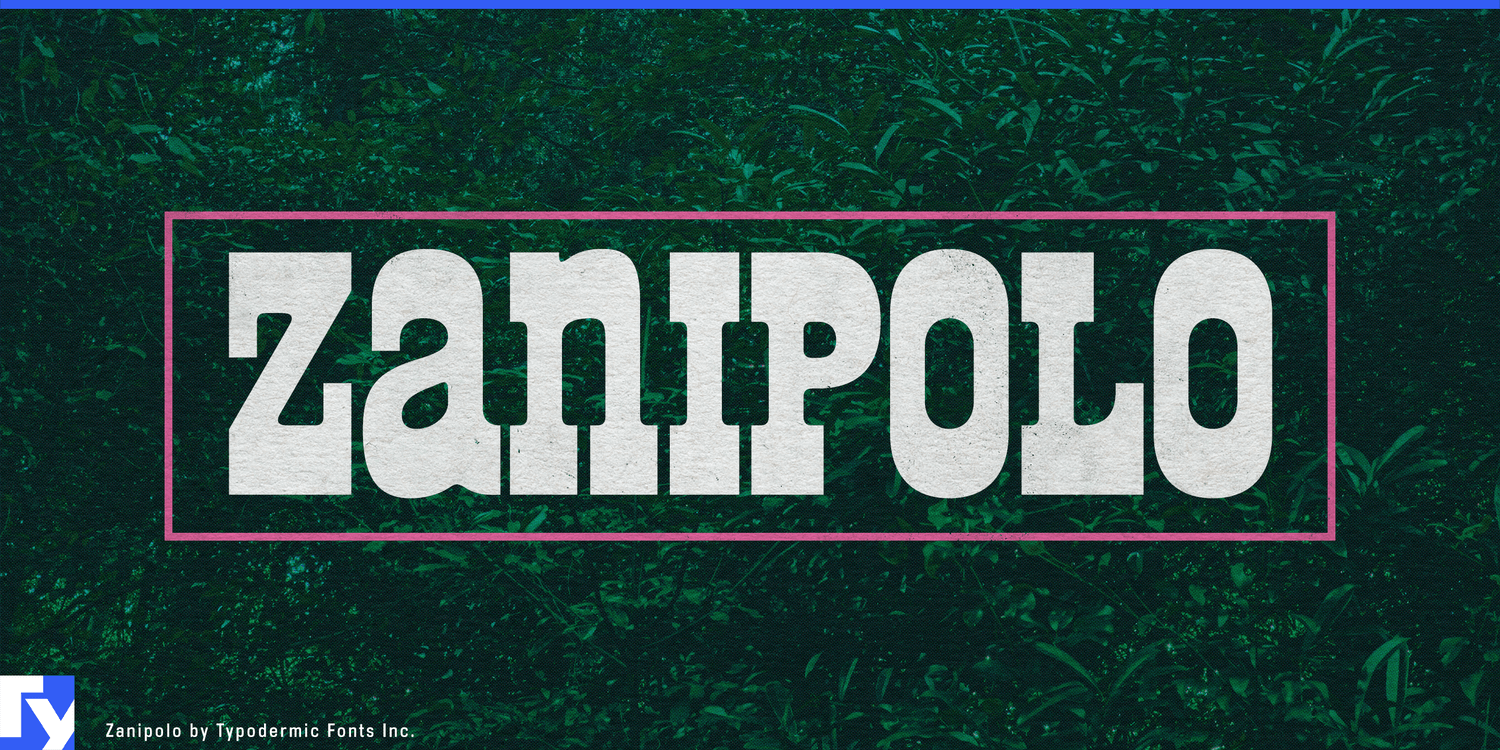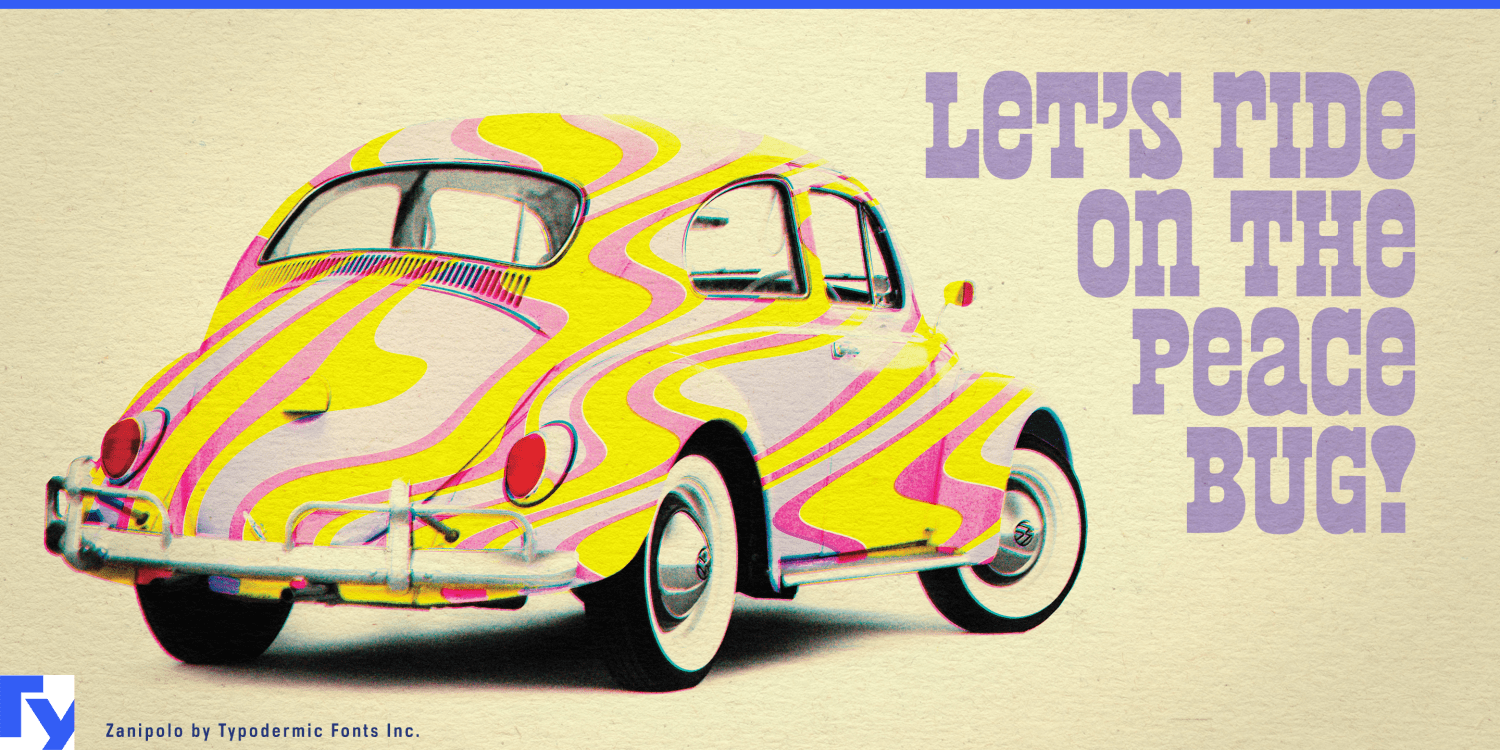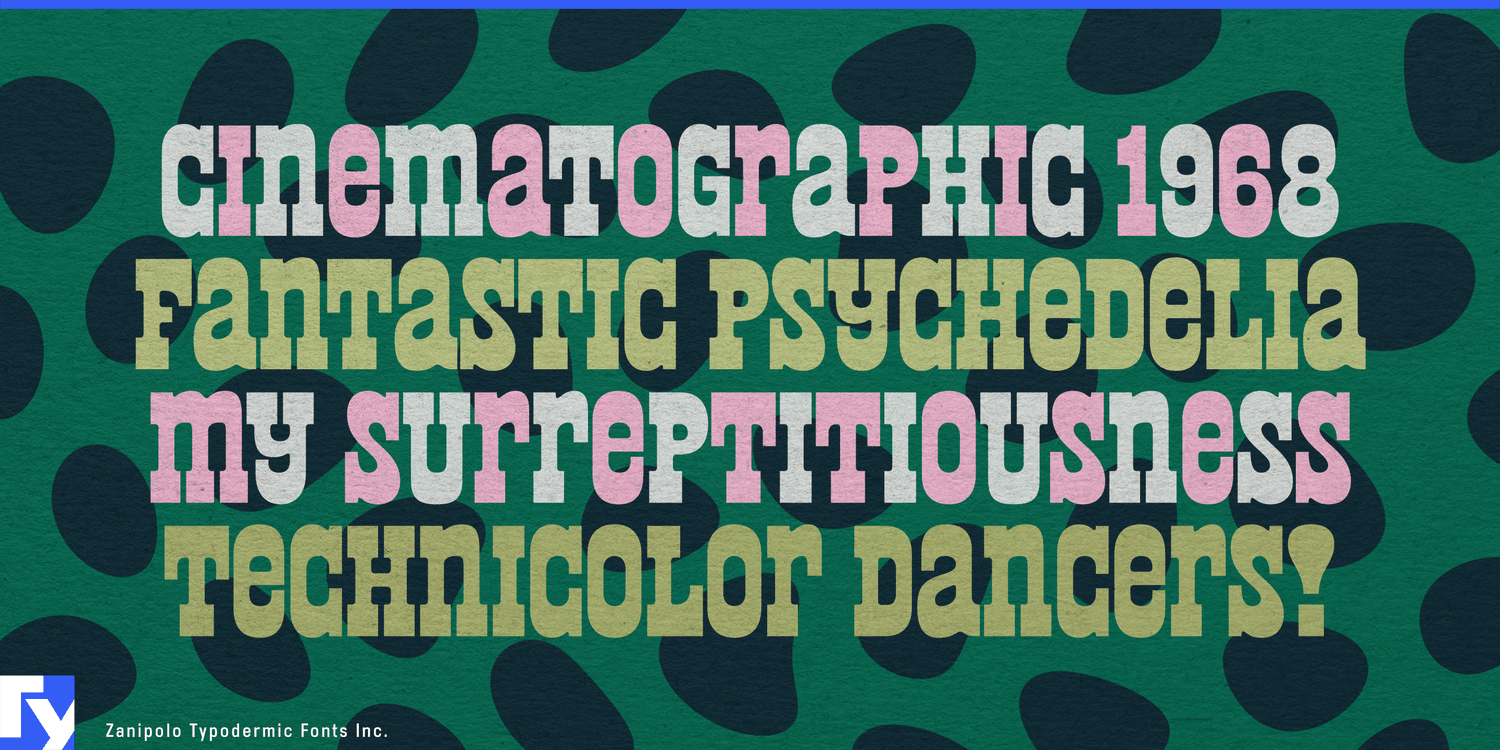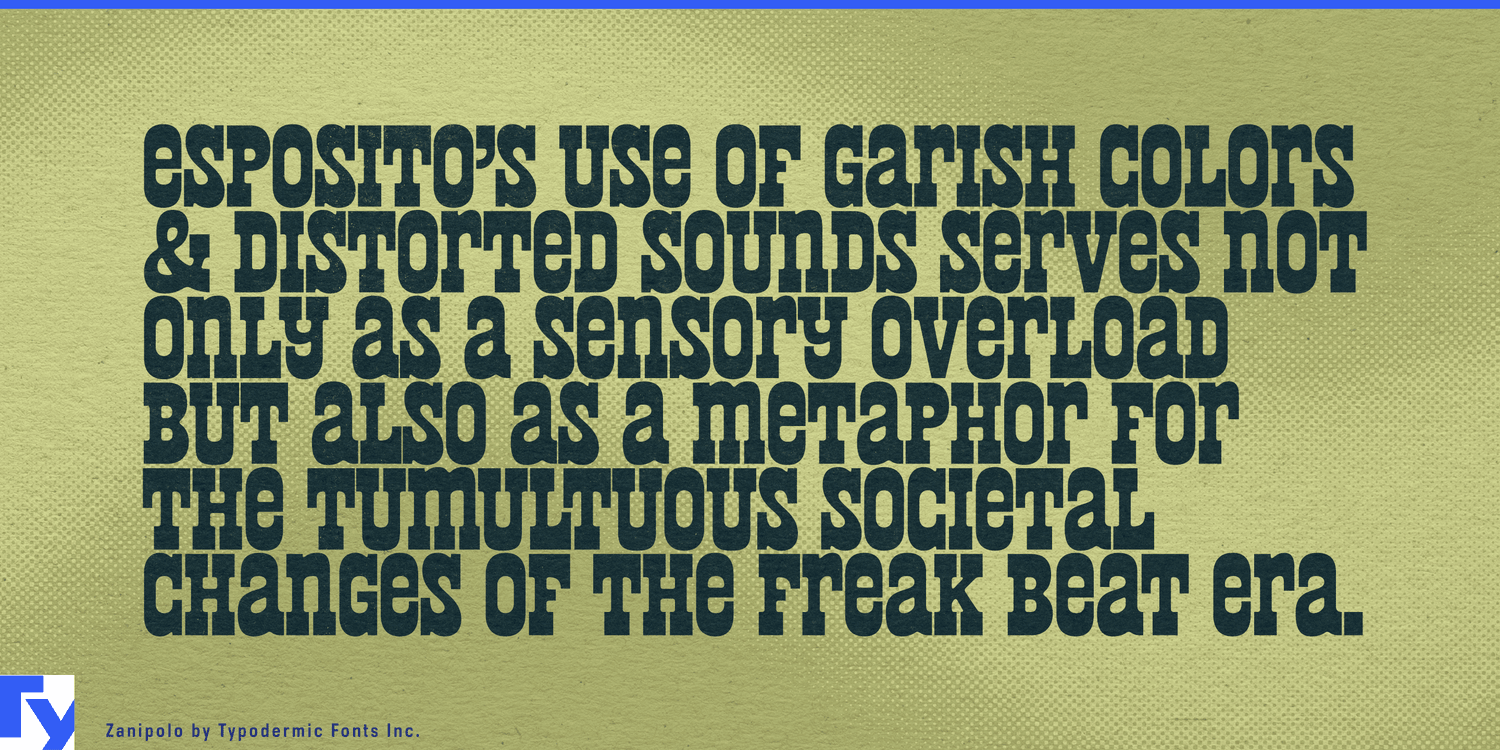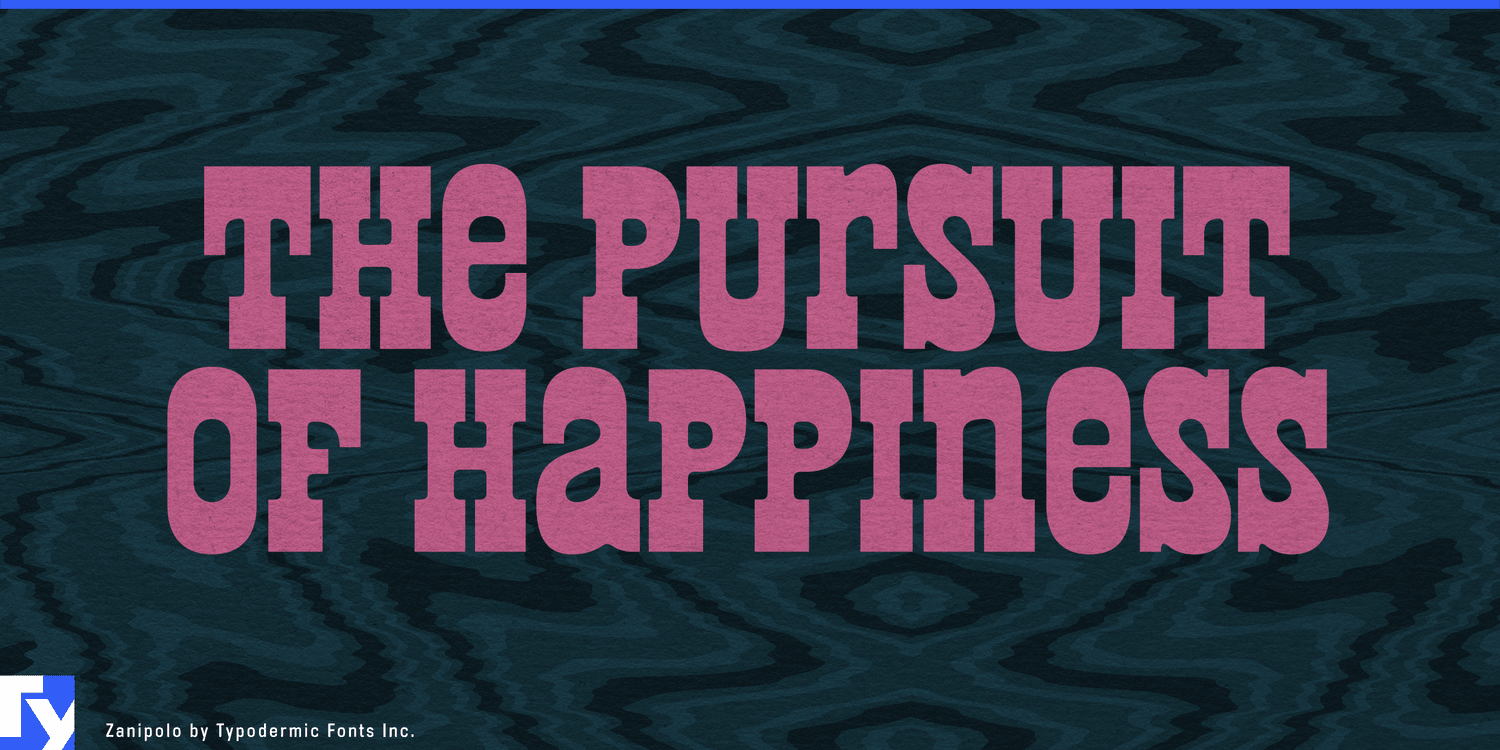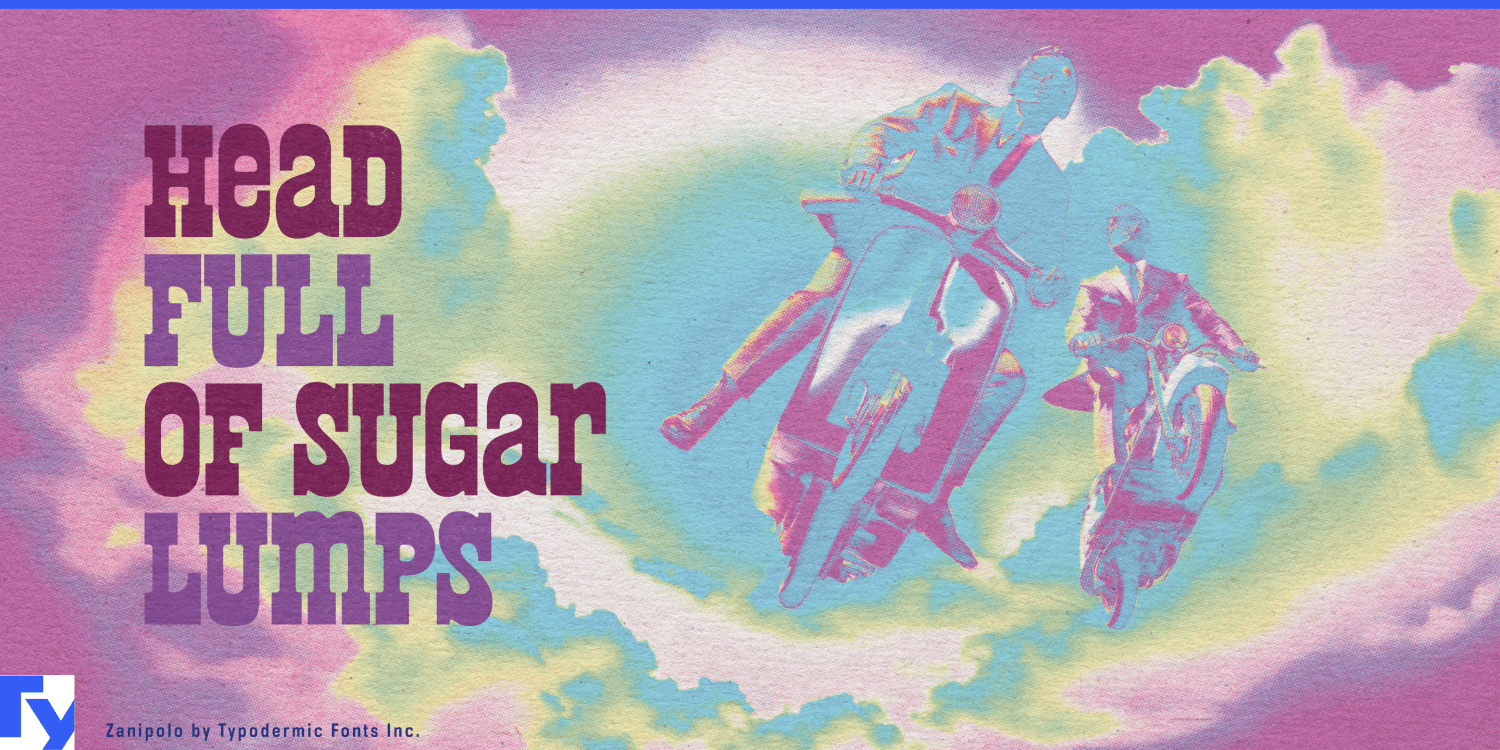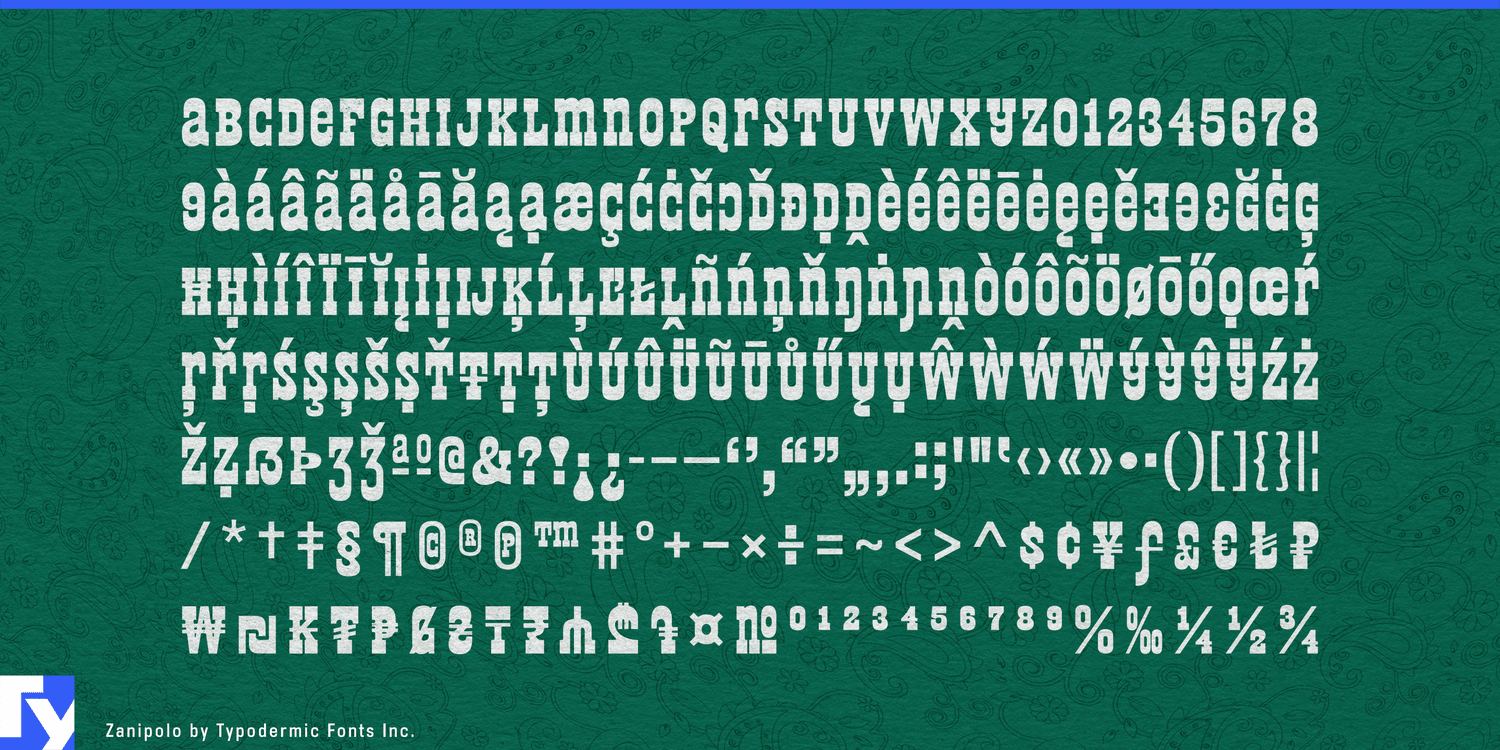
Zanipolo
Some packages need the product name to do most of the graphic work. A heavy slab serif can lay down plenty of ink, but it often brings Western, industrial, or heritage associations along with it. Zanipolo delivers similar visual mass with softer corners, tight spacing, and playful unicase forms, producing dense words that feel friendly rather than rugged.
Its unconventional A and lowercase-derived shapes reduce some of the gaps that interrupt ordinary all-cap words. Short names can become remarkably solid blocks, especially at large sizes and in strong color combinations. The reverse-contrast construction adds another layer of strangeness without breaking that compact rhythm.
That behavior makes Zanipolo particularly effective for contemporary food packaging. Pasta boxes, tomato tins, pesto jars, polenta cartons, olive containers, and prepared sauces can let the product name occupy the package instead of floating inside it. Its European slab-serif roots provide a useful connection to grocery typography without turning the result into nostalgic pastiche.
Small packages benefit even more. Sardine tins, anchovy cartons, preserved seafood, pickled vegetables, and other conservas leave little room for a large name, illustration, variety, and supporting information. Zanipolo can compress an assertive product name into that space while a quieter companion face handles the details. Across a range, changing foreground and background colors can distinguish flavors or varieties while the typography keeps the family recognizable.
Pizza shops, delis, gelato stores, food halls, and contemporary casual restaurants can extend the same approach across menu boards, boxes, sandwich wraps, delivery bags, counter graphics, and window signs. Large category words such as PIZZA, DOLCI, LUNCH, or DRINKS become substantial visual anchors without feeling stern.
Color-coded snack and private-label grocery ranges offer another natural role. Crackers, popcorn, cookies, preserves, bakery products, and seasonal foods can use Zanipolo for oversized product or flavor names while a neutral text face carries ingredients, nutrition, and other information.
Outside food, the same density works whenever a short title needs to occupy serious visual acreage without becoming severe. Report covers, presentation openers, exhibition titles, and campaign graphics can turn a few words into a compact field of color. Zanipolo’s unusual mixture of narrow European slab-serif ideas and psychedelic exaggeration is memorable, but its real strength is practical: it lays down a lot of ink in very little space while keeping the result soft, colorful, and fun.